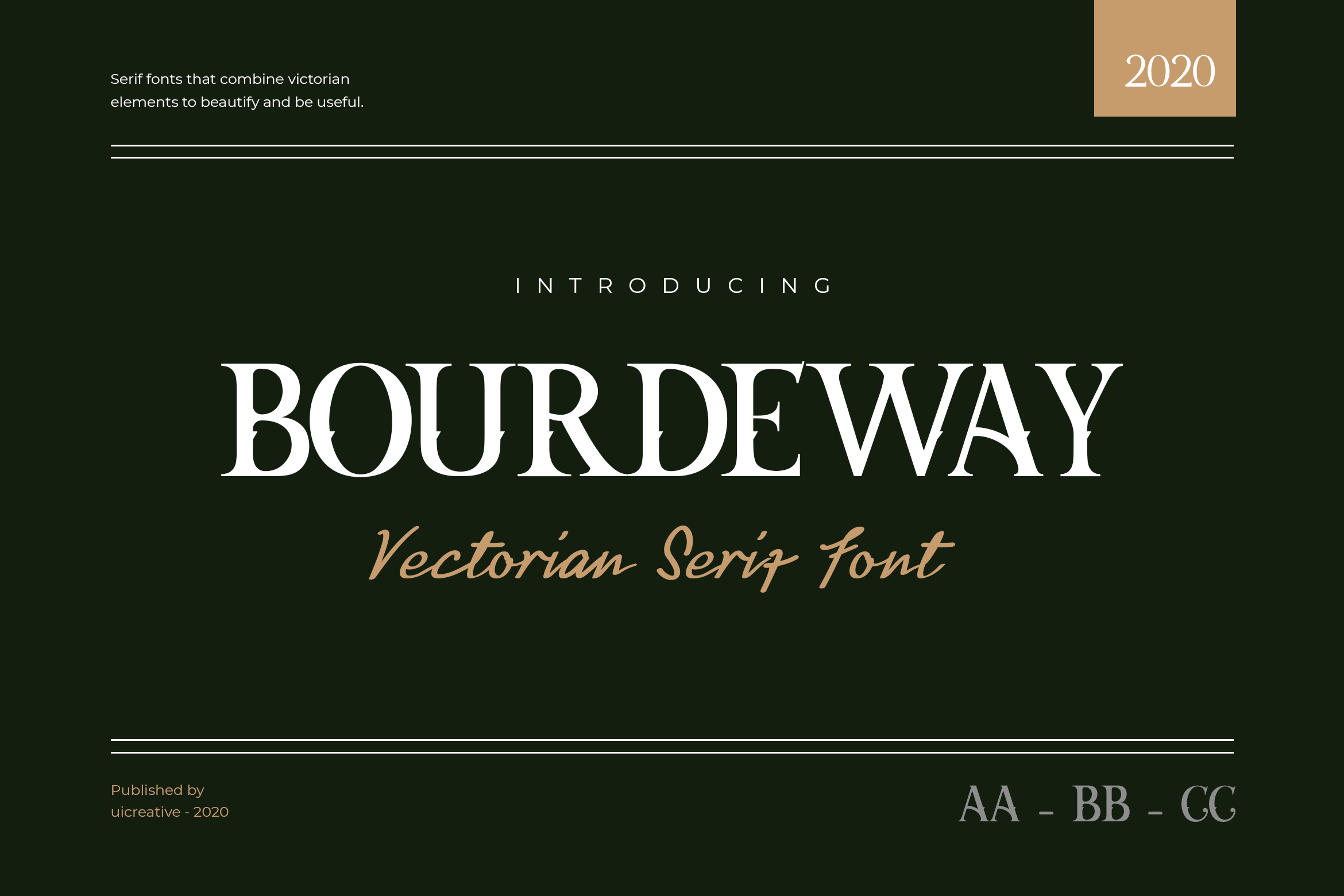
Bourdeway Decorative Serif Font
Bourdeway Decorative Serif Font embodying vintage and elegant curves with combinations of sharp edges, and curvy lines. It can make it easier to convey the message in your design. Use for awesome display, labeling, clothing, movie screen, poster, movie title, gigs, album covers, headlines magazine, logos, and much more. It's also could be good for both fun and semi-formal text.